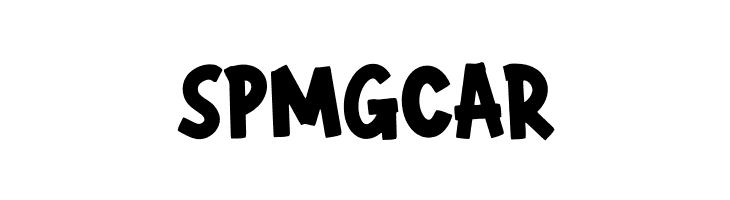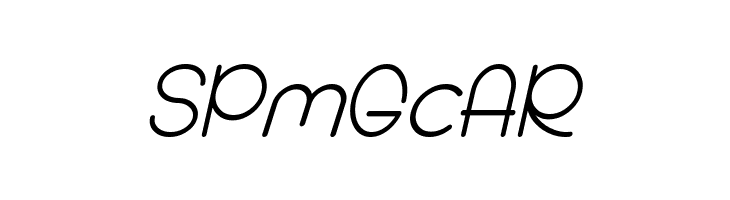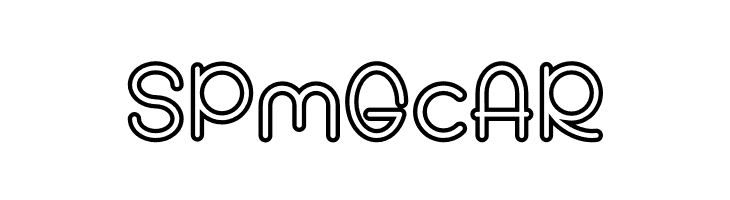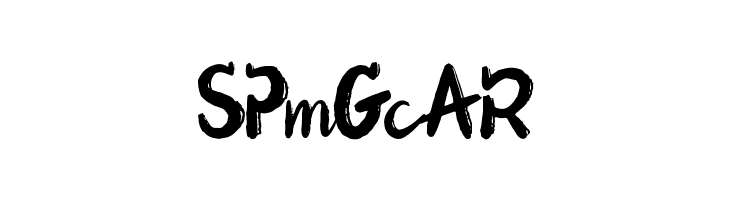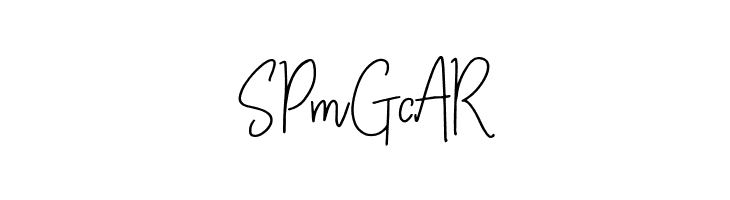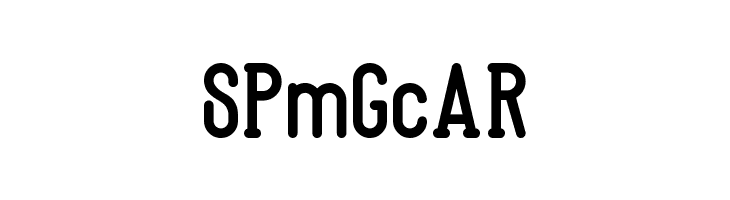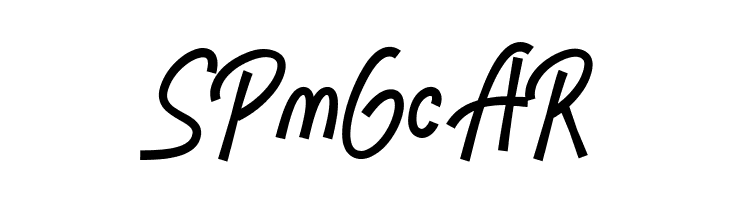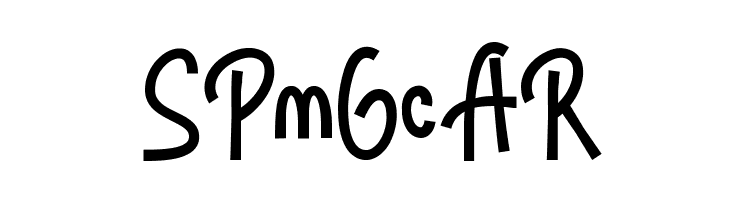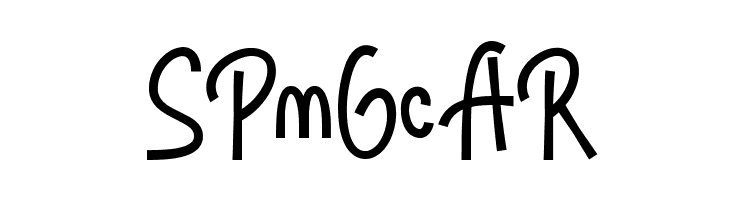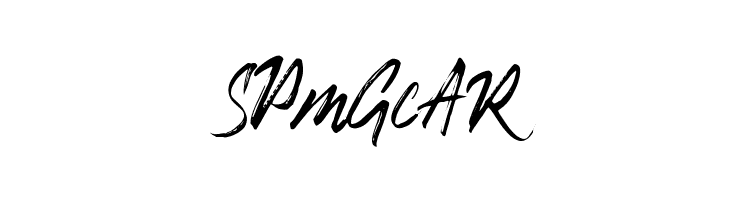
A sleek, italicized font with smooth, flowing lines and a modern feel.
A modern, outline-style font with rounded, hollow characters.
A playful, rounded font with consistent stroke width and a modern aesthetic.
A playful and whimsical font with tall, narrow letters and a dynamic appearance.
A bold, playful font with whimsical uppercase and rounded lowercase letters.
A bold, italicized font with a dynamic and energetic style.
A playful brush-style font with bold, dynamic strokes and a hand-painted appearance.
A bold, brush-style font with dynamic, expressive strokes.
A playful, casual handwritten font with flowing, connected letterforms.